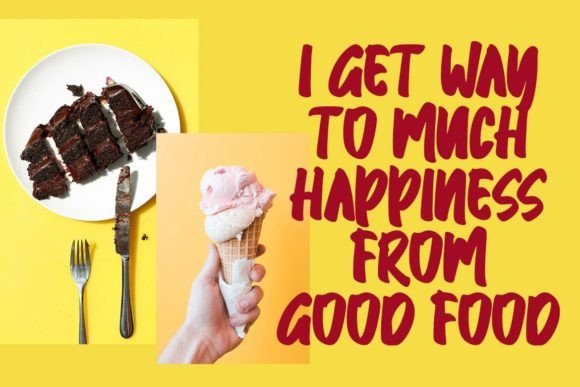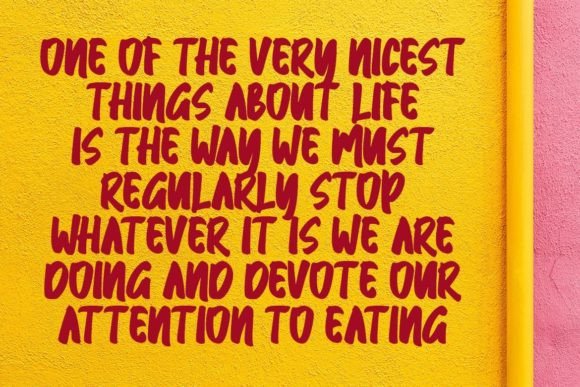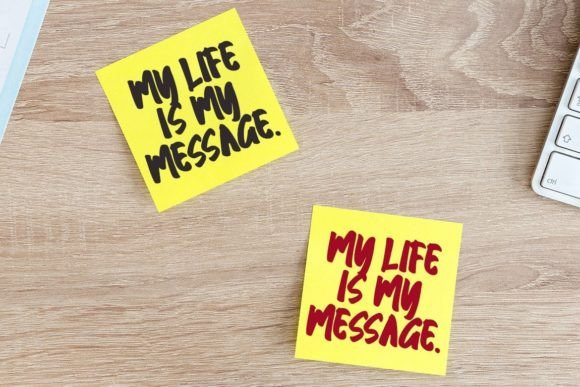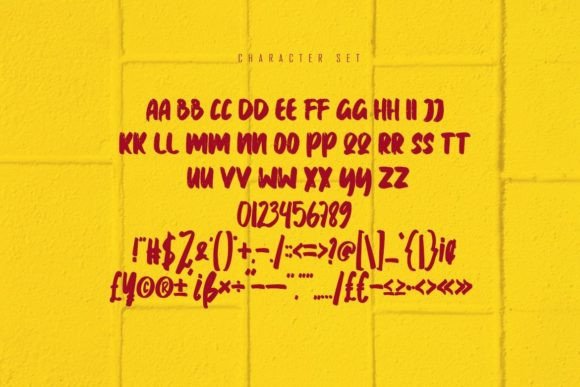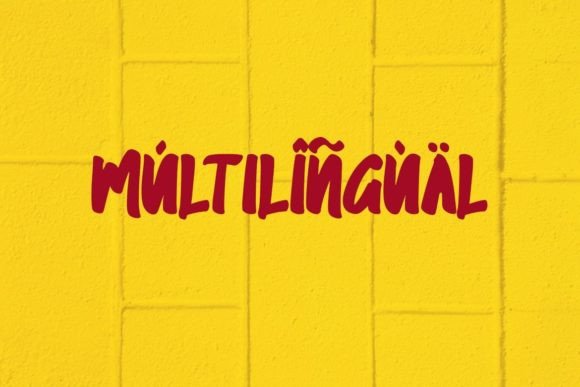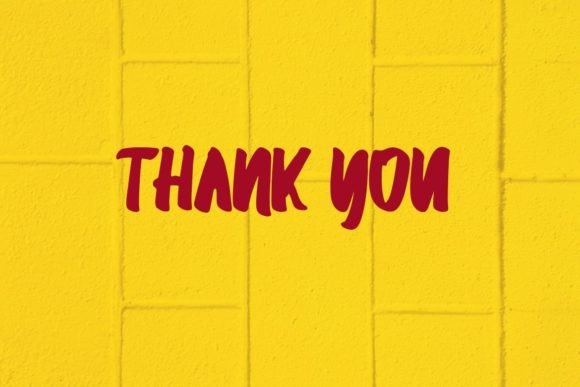
Introduction to Nezires Font
Nezires is a bold handwritten font that looks beautiful on a variety of designs requiring a personalized style such as wedding invitations, thank you cards, weddings, greeting cards, logos, and so on.
Key Features of Nezires Font